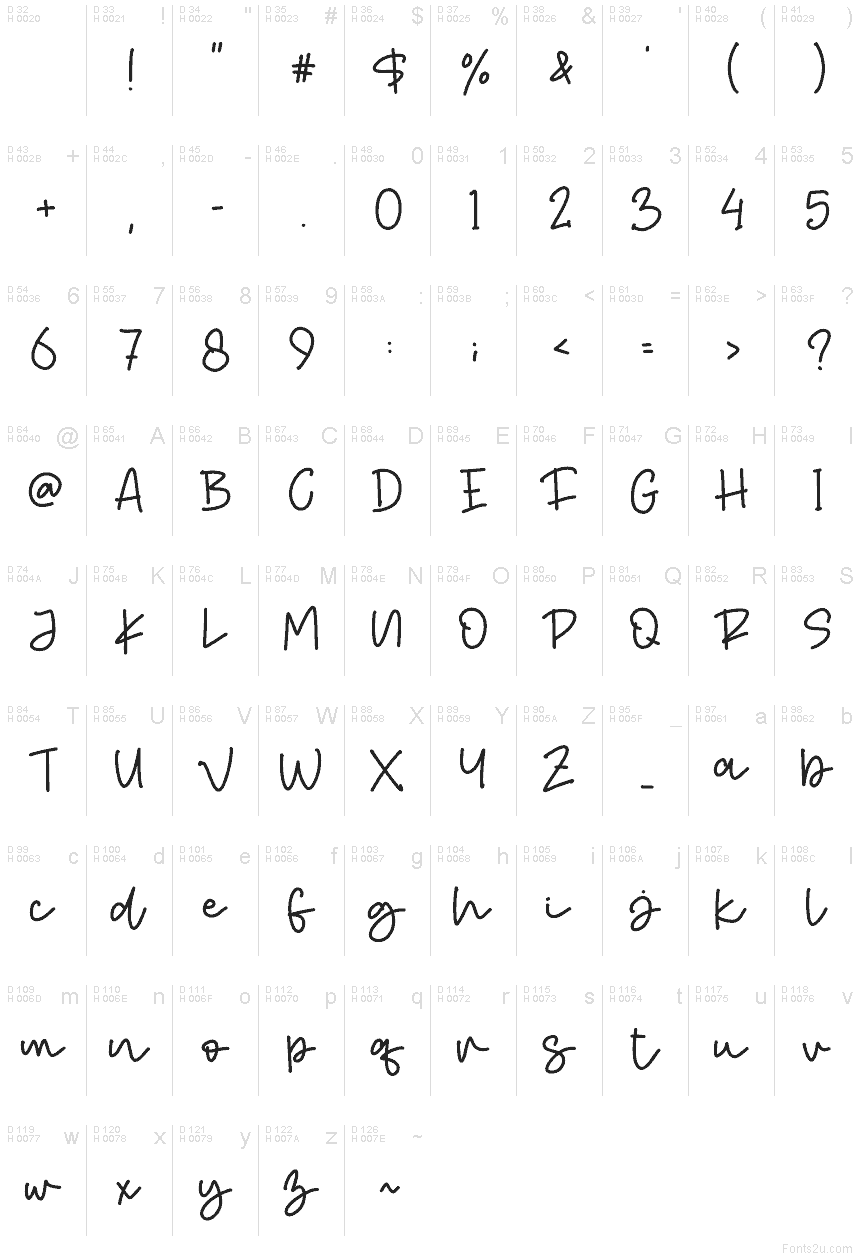
Sweet Romantic font by Letterafa Studio is a free handwritten script typeface that feels like a note scribbled in a favorite journal. The strokes are smooth, slightly bouncy, and ink-like, giving every word a soft, personal warmth without turning messy or hard to read. Its gentle rhythm and airy spacing make it easy on the eyes, even when you use longer lines of text.
Using Sweet Romantic, you can bring a cozy, heartfelt tone to wedding invitations, save-the-date cards, love notes, social media quotes, packaging, logos, and greeting cards. This free font shines when set larger for headings, while you can pair it with a simple sans serif for supporting text to keep things clean and readable.